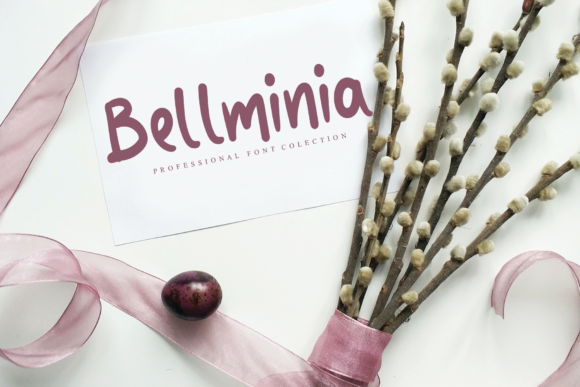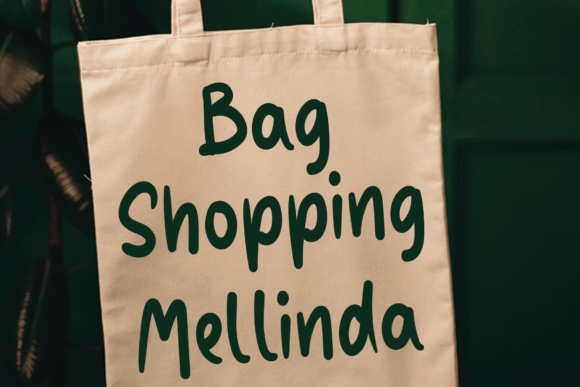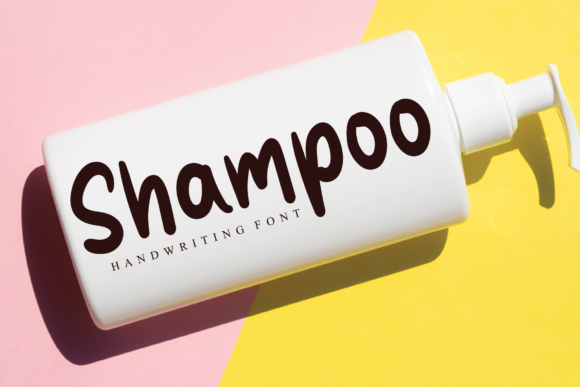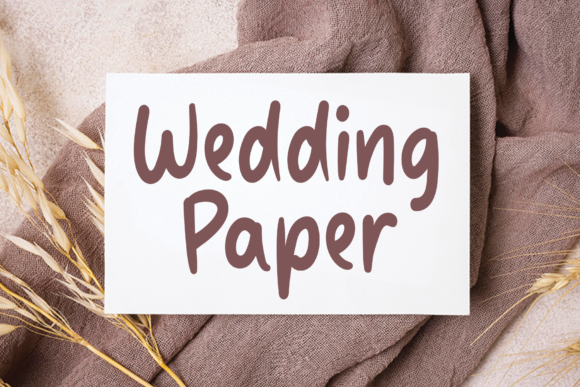
Something Font
About Something Font
Something is a delicate and simple handwritten font. Its distinct and cute letters make this font a masterpiece. Fall in love with its incredibly versatile style and use it to create spectacular designs!